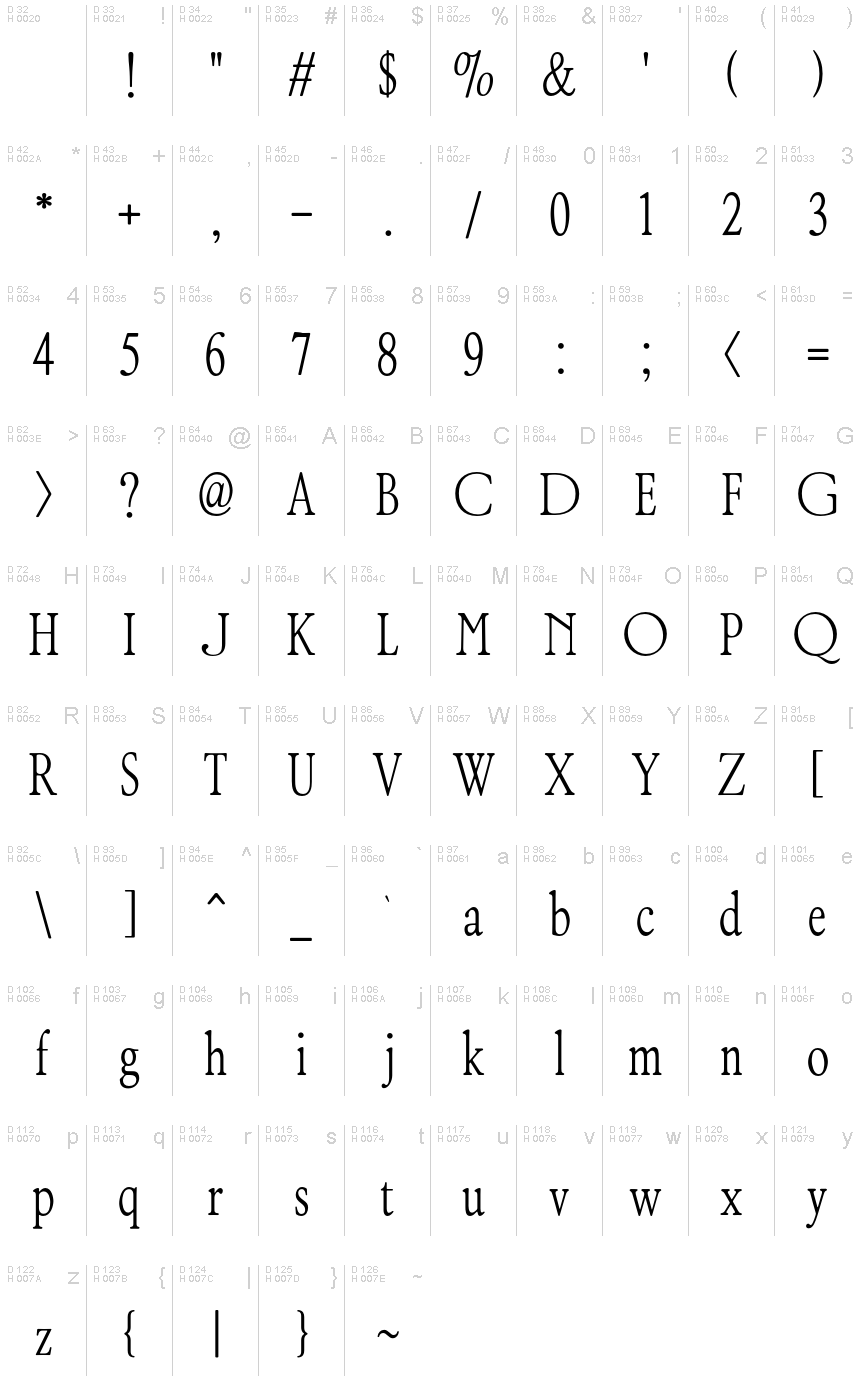
ZT Bros Oskon 90s Regular
ZT Bros Oskon 90s portrays a wonderful look that takes us back in the nineties. It features a condensed form and striking serif styling which makes it stand out among its contemporaries. Zelow Type developed this font which has an interestingly vintage inspired design that is mixed with some contemporary elements. These well-refined letters and interestingly proportioned characters form attractive, unified, and visually pleasing typographical experience.
ZT Bros Oskon 90s offers a broad range of uses due to its versatility. Its narrow width and traditional narrow serifs make it ideal for headlines, titling or branding where its bold weight will have great impact on the reader. Moreover, this font is legible enough and versatile too to be used as a body text in various scenarios such as advertising or editorial designing allowing designers to give their creations a touch of yesteryears in them.
Designed by Khairunnas from Zelow Type 2023